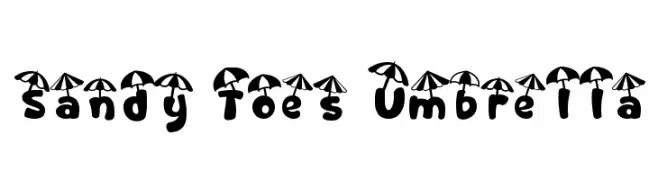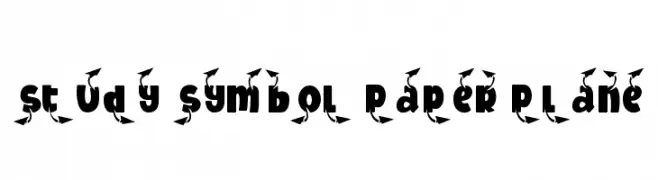
( Fonts by PutraCetol Studio )
A playful, umbrella-themed decorative font with bold, rounded characters.
( Fonts by Tebaltipis Studio )
A graceful, handwritten script font with fluid, cursive strokes.
( Fonts by Origin Type )
A bold, playful brush-style font with a hand-drawn aesthetic.
( Fonts by PutraCetol Studio )
A bold, rounded font with a playful and chunky style.
( Fonts by PutraCetol Studio )
A bold, decorative font with an educational theme, featuring book symbols beneath each character.
( Fonts by PutraCetol Studio )
A bold, playful font with integrated paper plane motifs, perfect for creative projects.
( Fonts by PutraCetol Studio )
A playful, decorative font with a ruler-like pattern and hand-drawn aesthetic.
( Fonts by Edignwn Type )
A bold, textured font with a playful, handcrafted feel.
( Fonts by Edignwn Type )
A bold, rough-textured serif font with a vintage, handcrafted feel.
( Fonts by PutraCetol Studio )
A playful, bold font with rounded, bubbly characters.